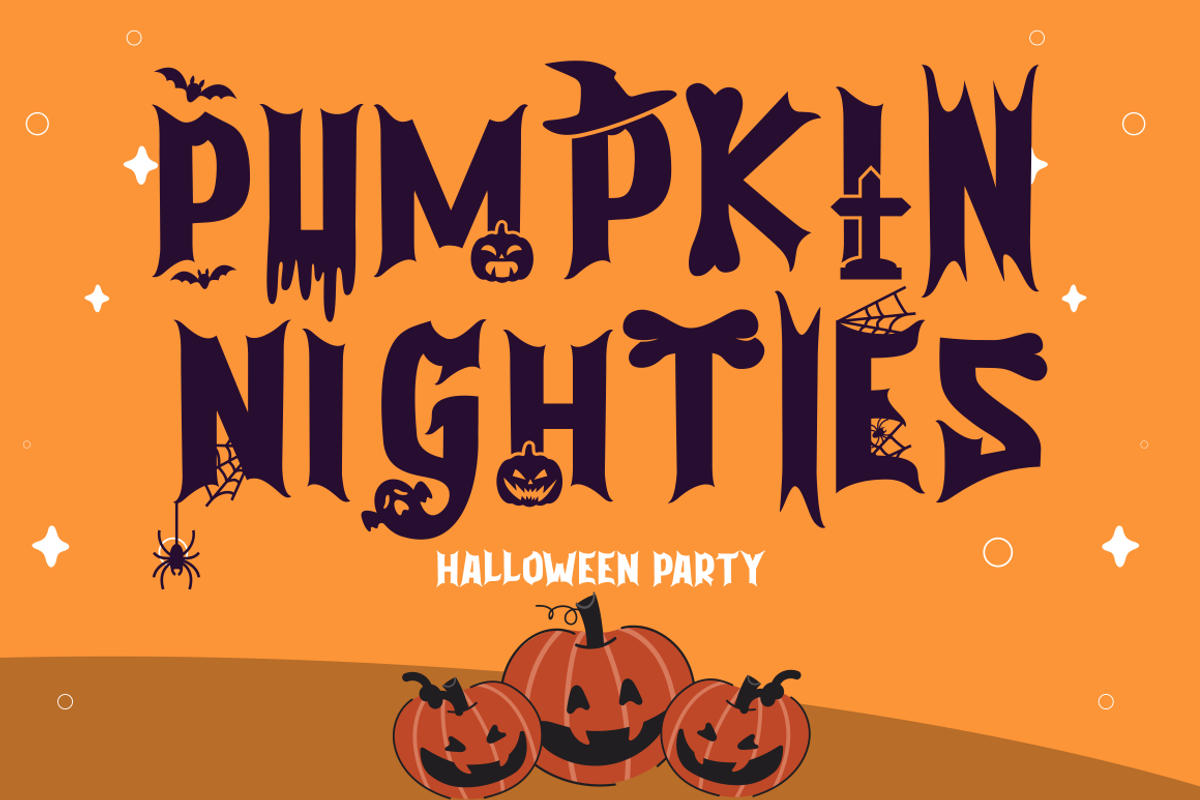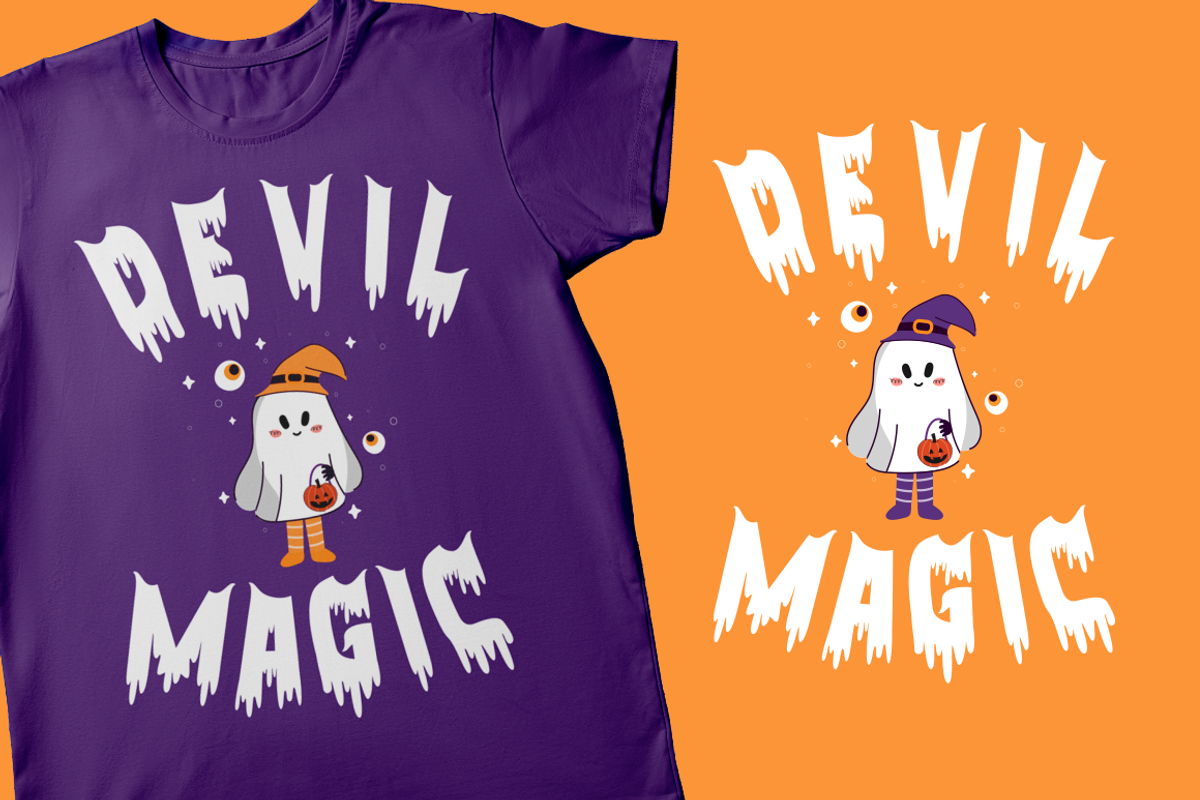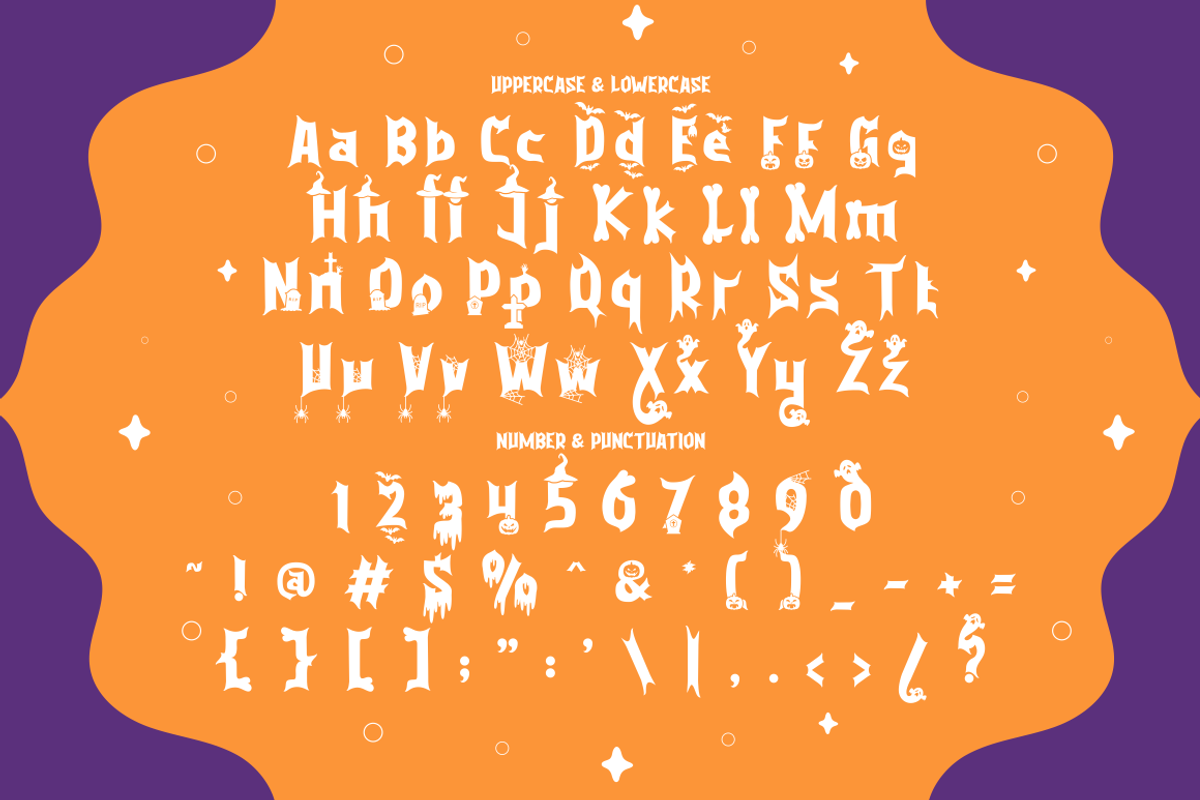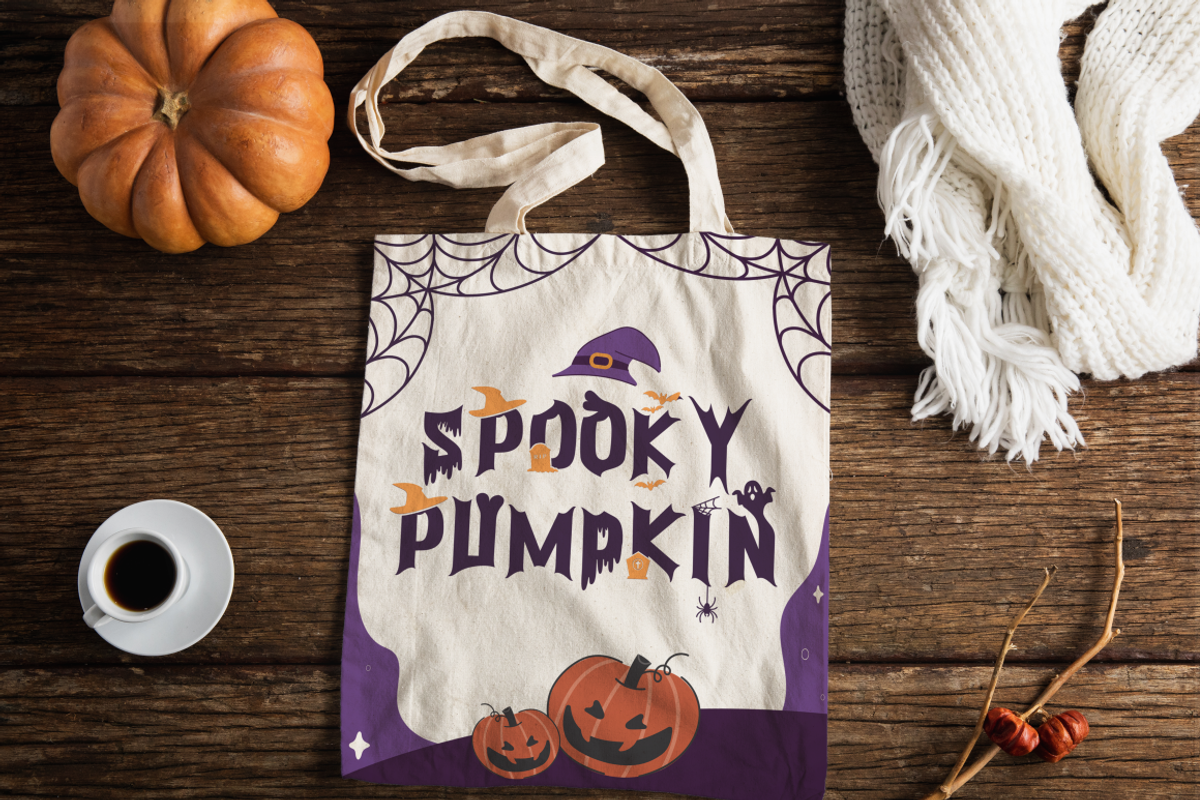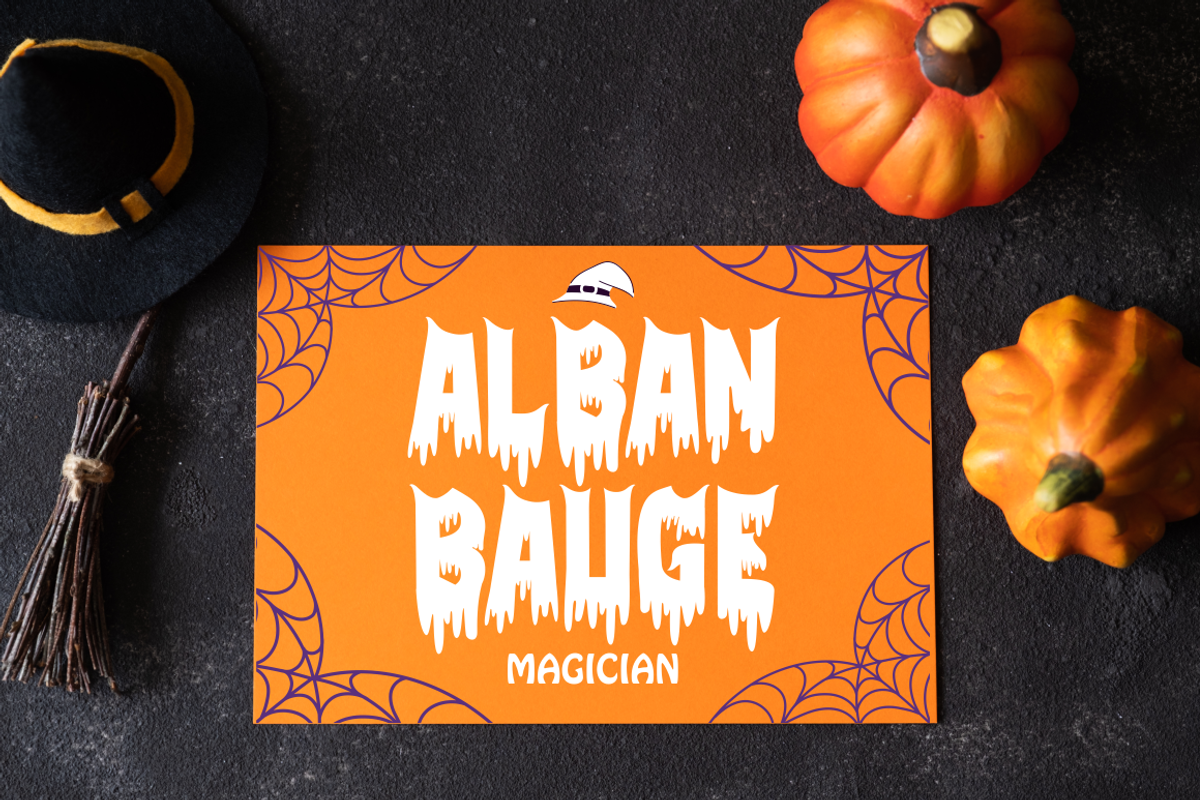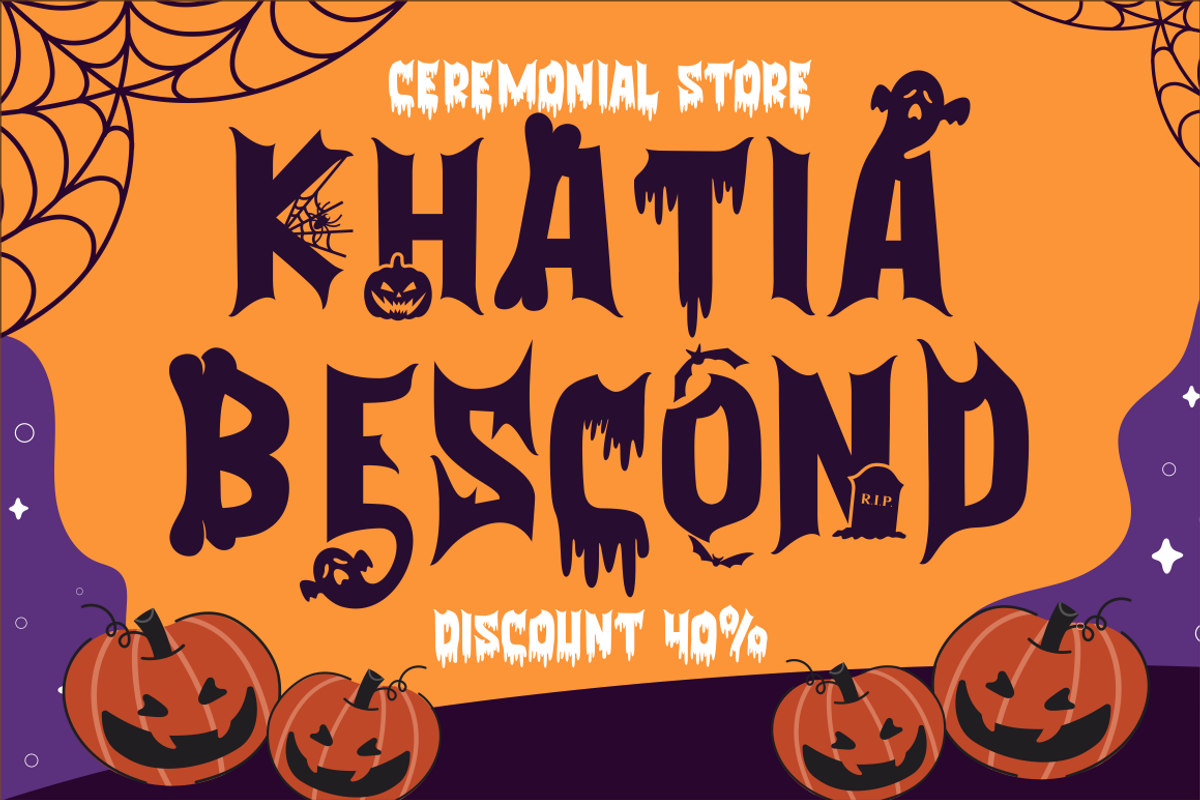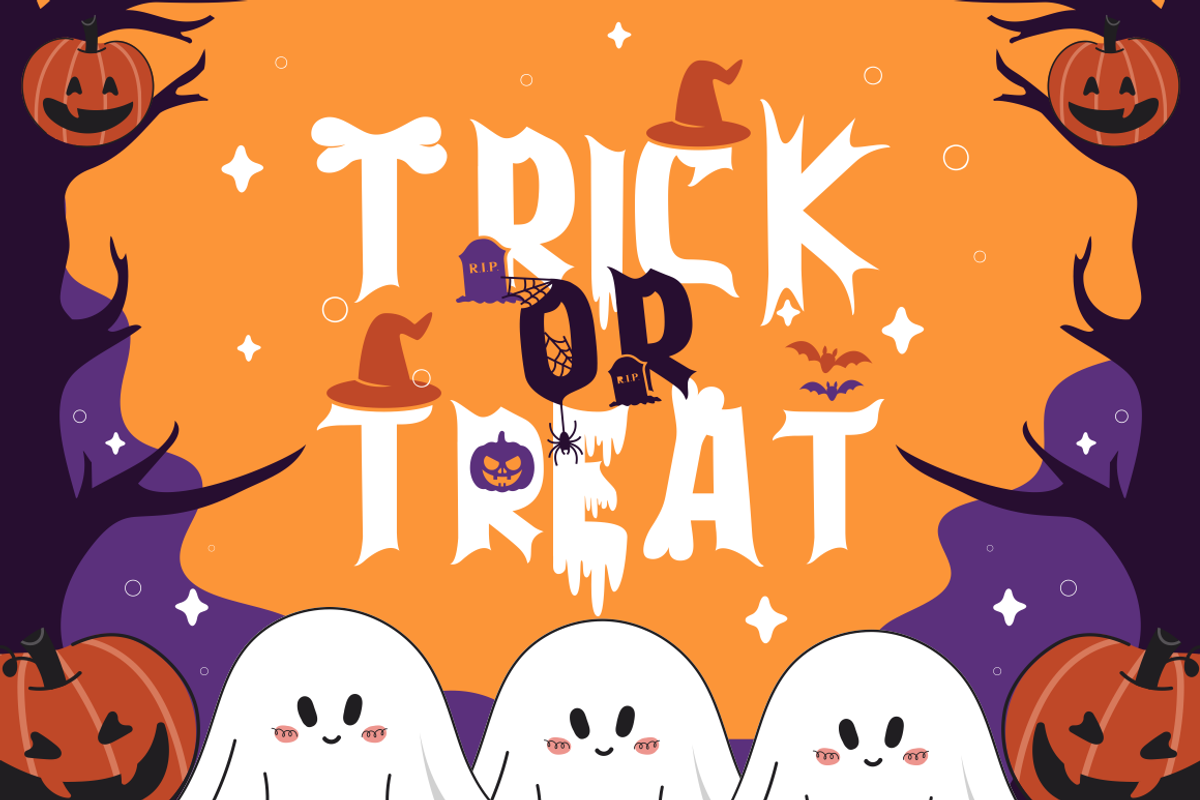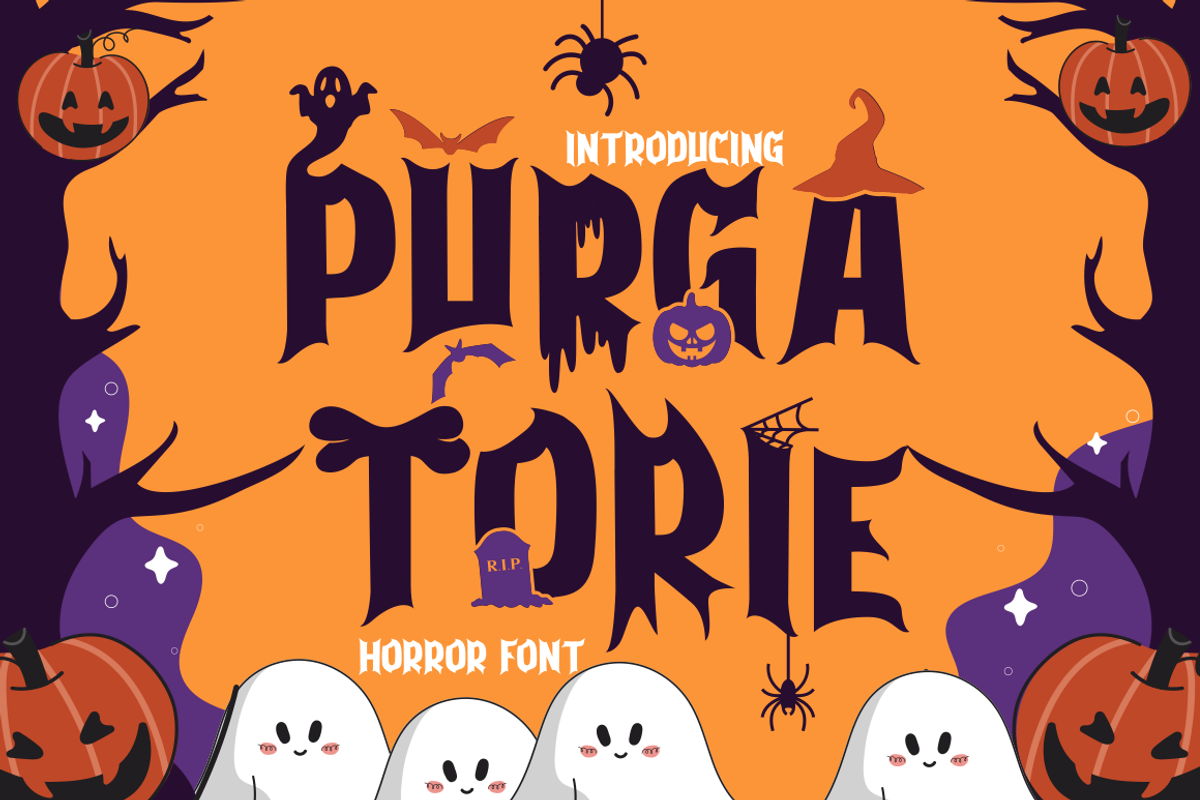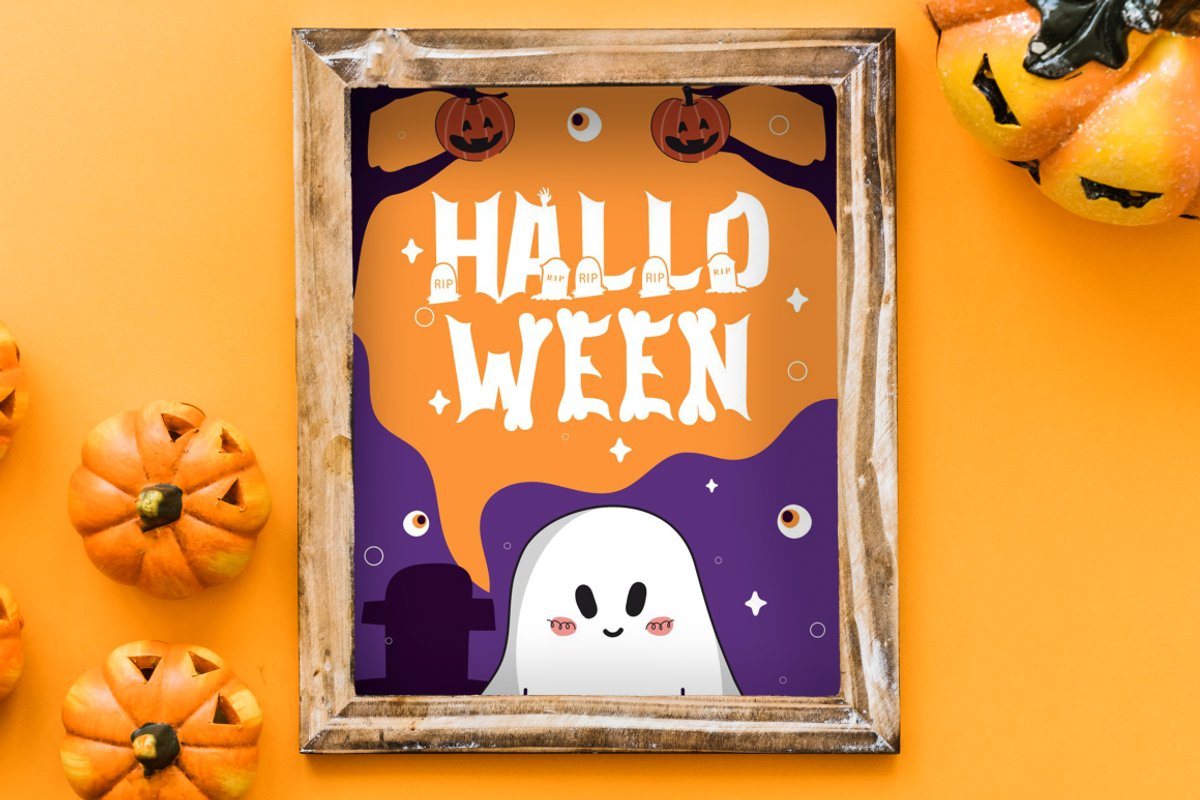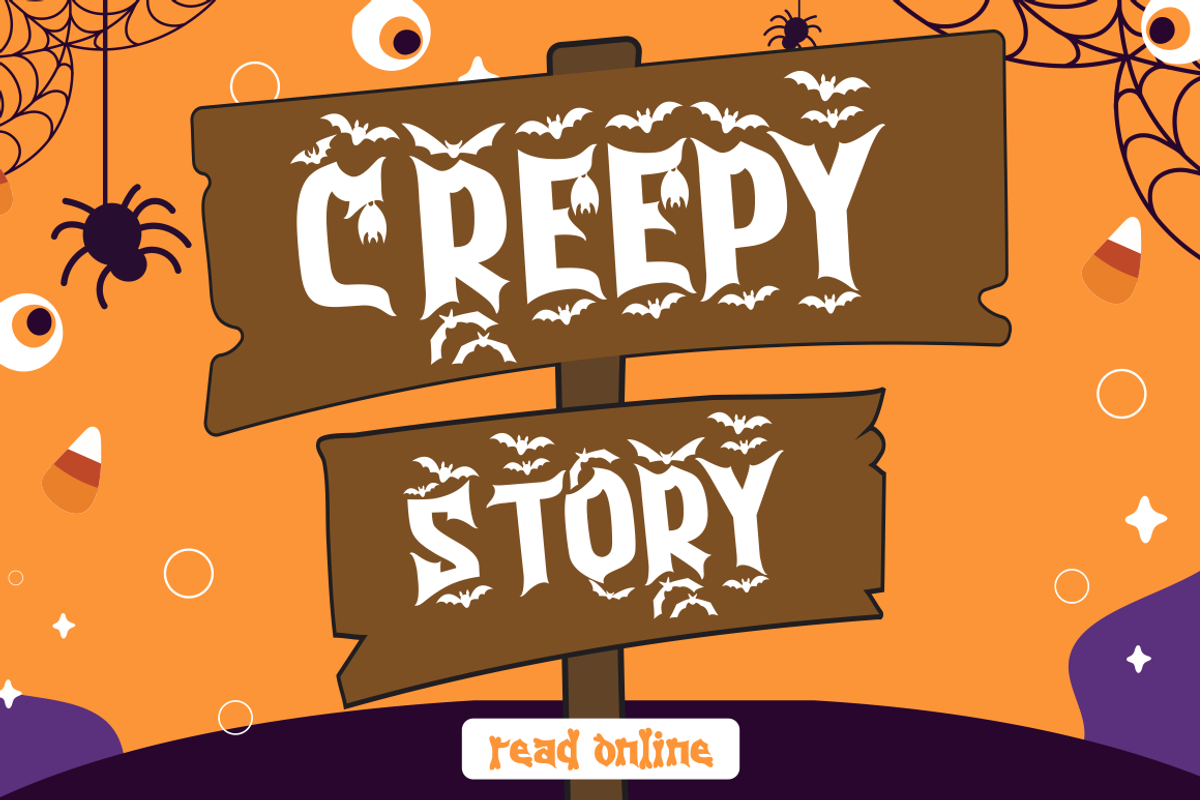
Purgatorie - Halloween Font
Purgatorie - Quirky Halloween Font is an enigmatic display typeface tailor-made for the spooktacular season of Halloween. With its sharp, angular letterforms, it effortlessly embraces the eerie and horror-themed design aesthetic. This font offers a whopping ten alternative variations, each inspired by different Halloween motifs like skeletons, bats, tombstones, blood, pumpkins, bats, witches' hats, and ghosts.
Ideal for crafters and designers who enjoy creating products with a variety of themes, Purgatorie is a fantastic choice for logos, packaging, product branding, stickers, crafting, greeting cards, and invitations. Its ability to bring a playful and whimsical Halloween spirit to your creative projects makes it a must-have for the season.
With its quirky Halloween style, Purgatorie allows you to create a bewitching atmosphere in your designs and celebrate the spooky holiday.